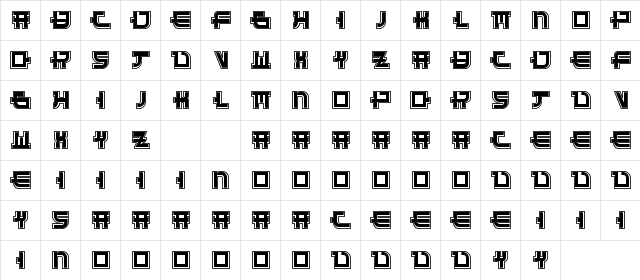
Funny Samurai Demo Outline Regular
Design Context for Funny Samurai Demo Outline Typeface
Funny Samurai Demo Outline trades formality for fun, with bouncy, characterful letterforms that bring warmth and energy to any project.
Font Pairing: Pairs well with a rounded or humanist sans for body copy, maintaining the friendly tone without relying on Funny Samurai Demo Outline to carry extended reading.
Pro Tip: Use Funny Samurai Demo Outline at larger display sizes where its expressive character can land. Pair with a clean, simple sans for body copy to maintain readability.